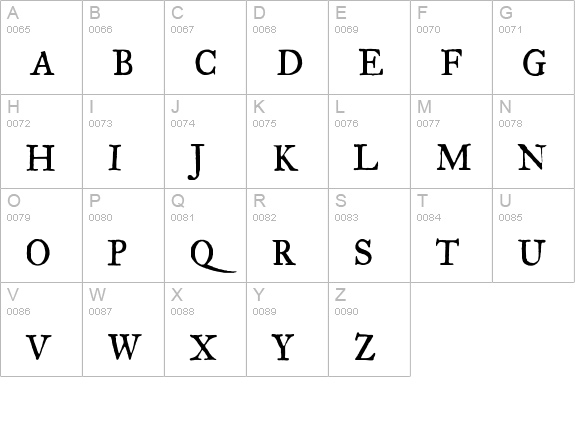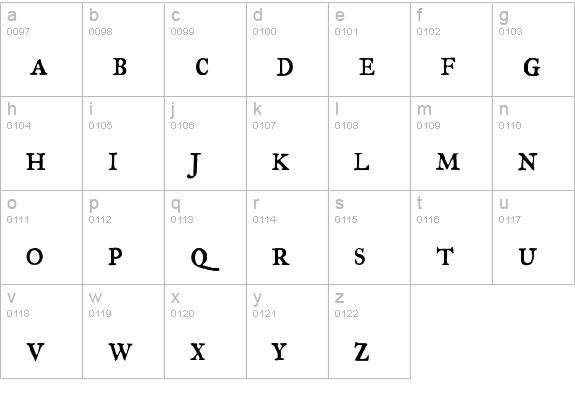
Historical-FellTypeRomanSC font is a classic and elegant typeface inspired by historical letterforms. Its timeless design evokes a sense of tradition and sophistication, making it perfect for projects that require a touch of vintage charm. The font features delicate serifs and graceful curves that add a sense of refinement to any text. Best of all, Historical-FellTypeRomanSC font is available for free download at FontsMarket.com. This means you can easily access this beautiful typeface and use it in your designs without any cost. Whether you're working on invitations, logos, or print materials, this font will bring a touch of old-world charm to your projects. Download Historical-FellTypeRomanSC font today and add a touch of timeless elegance to your designs.